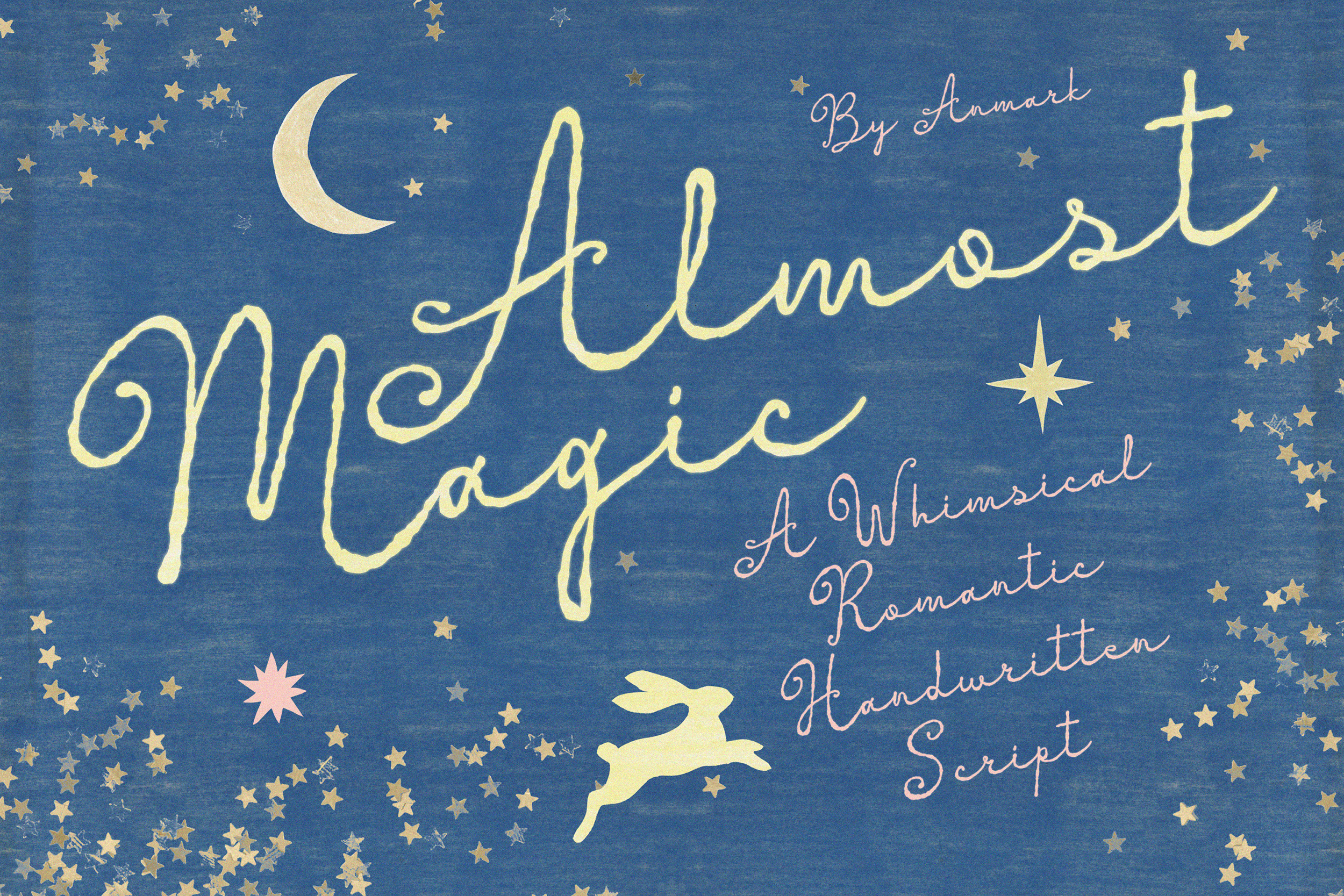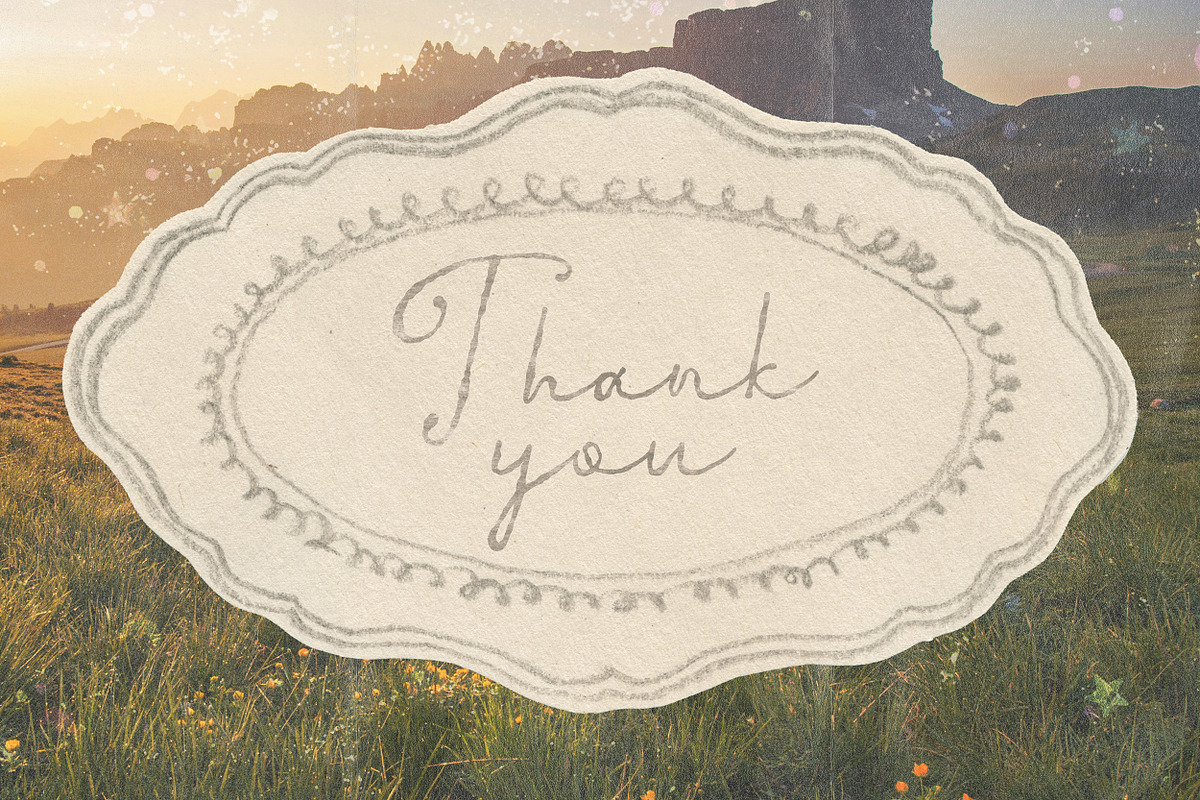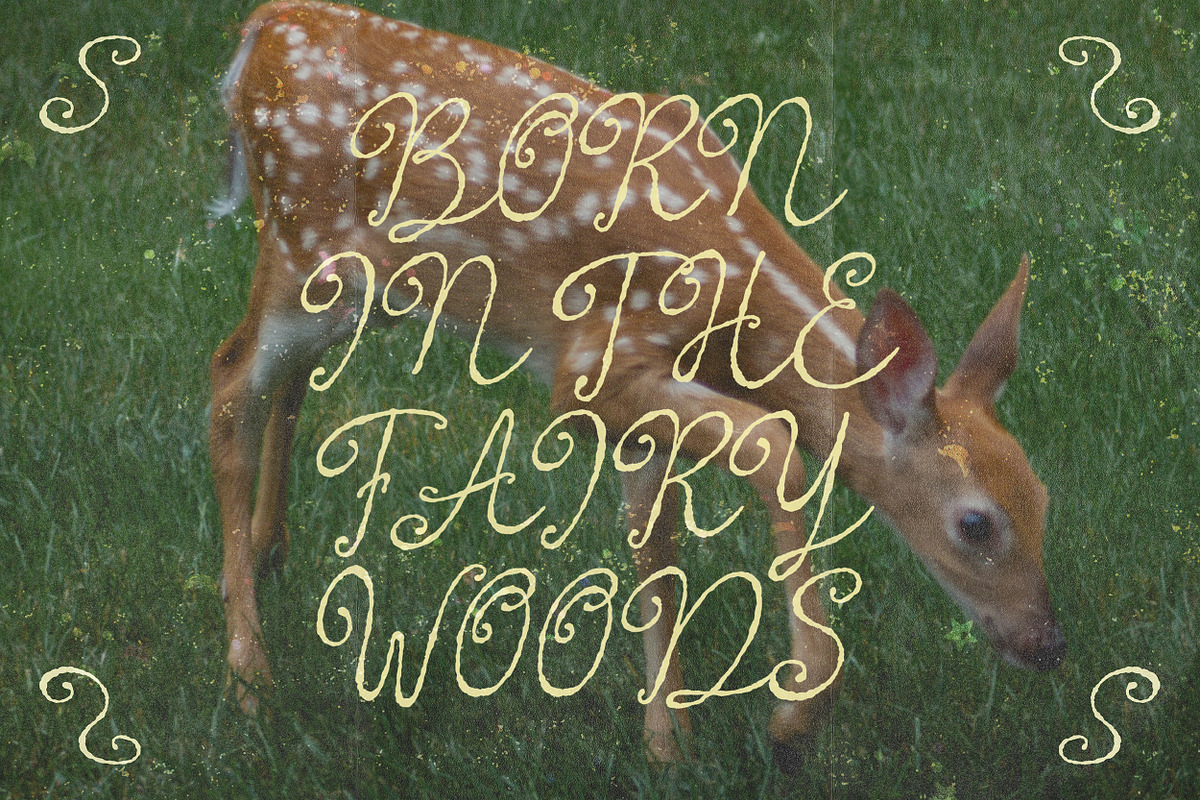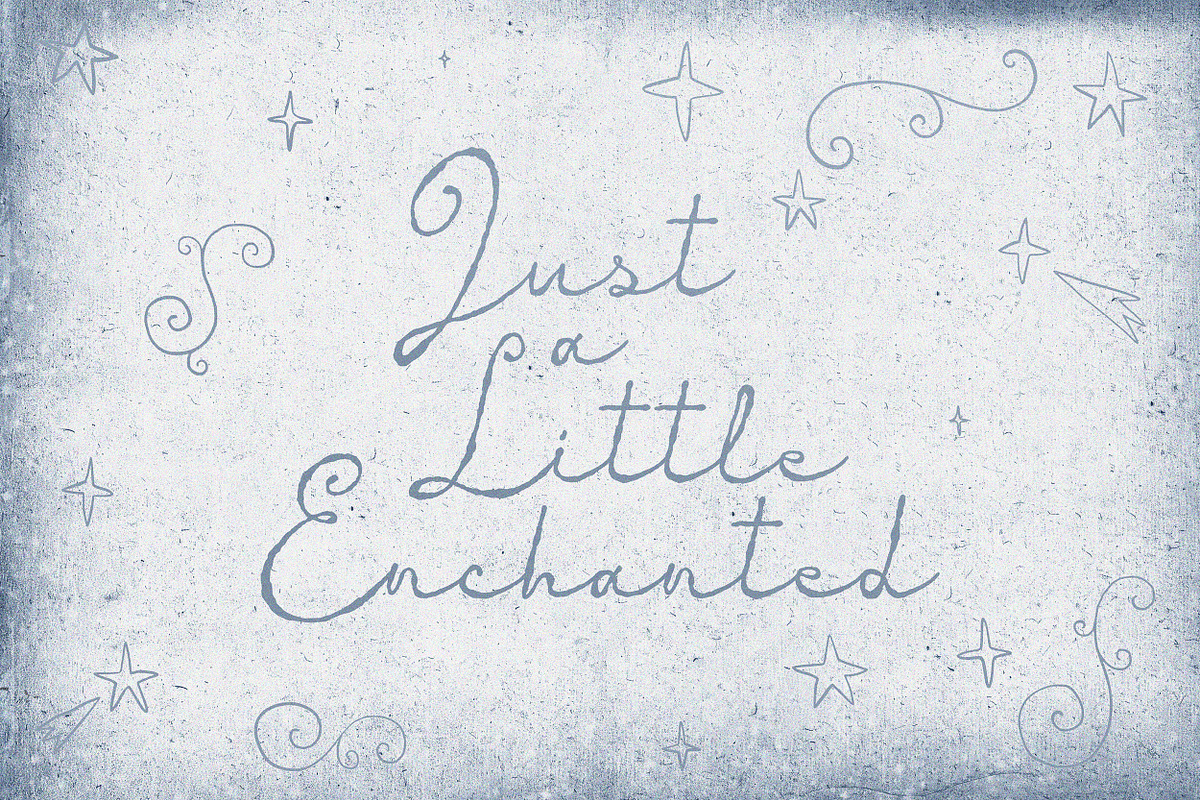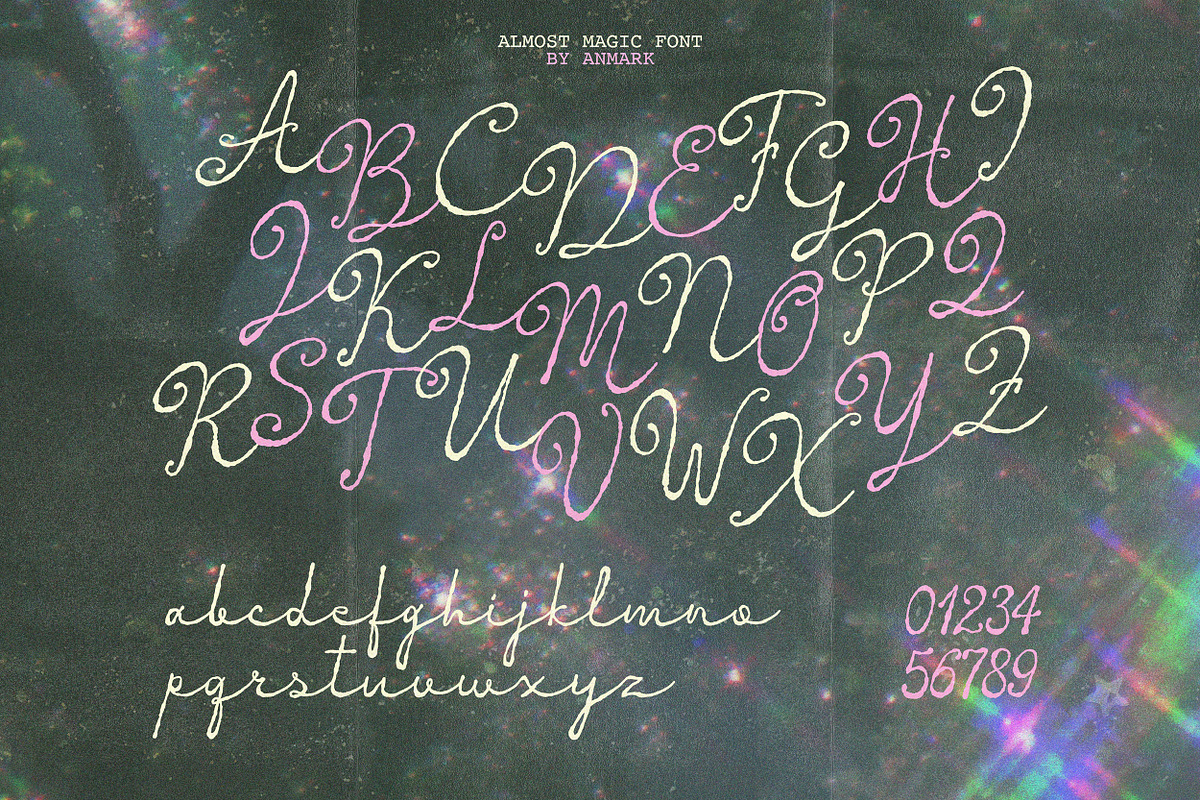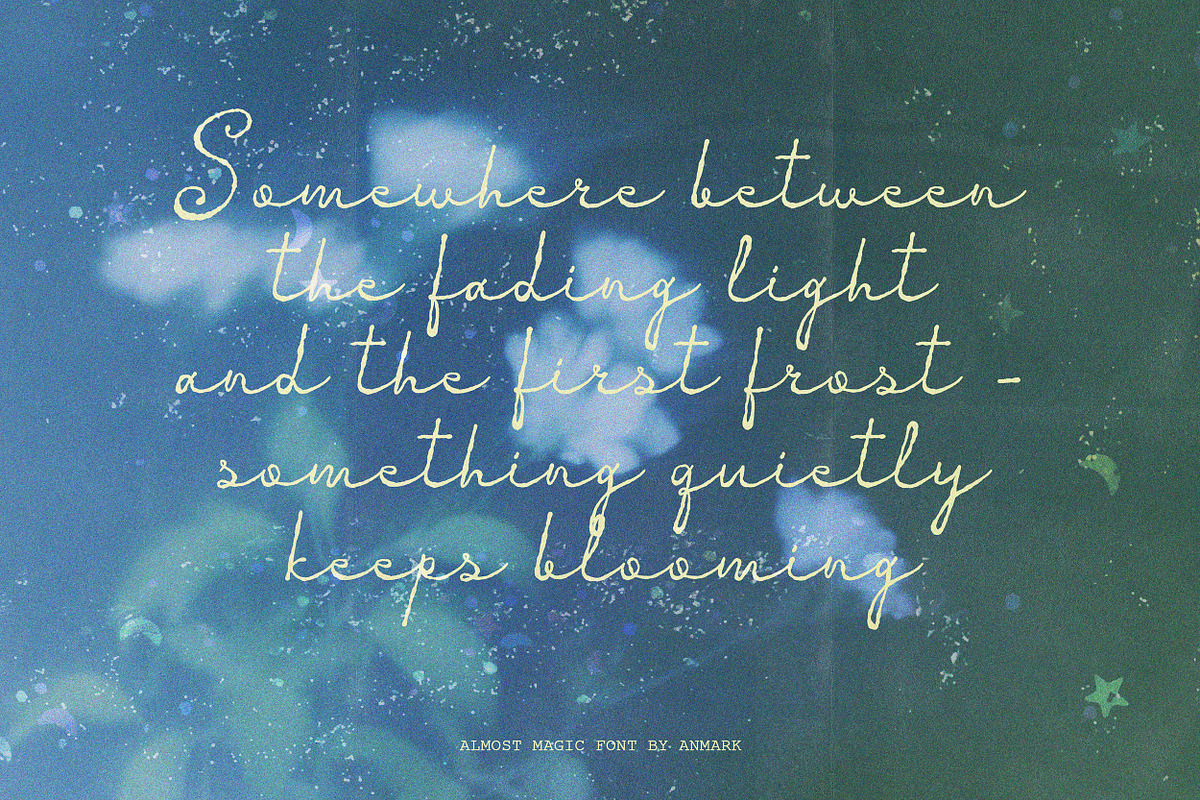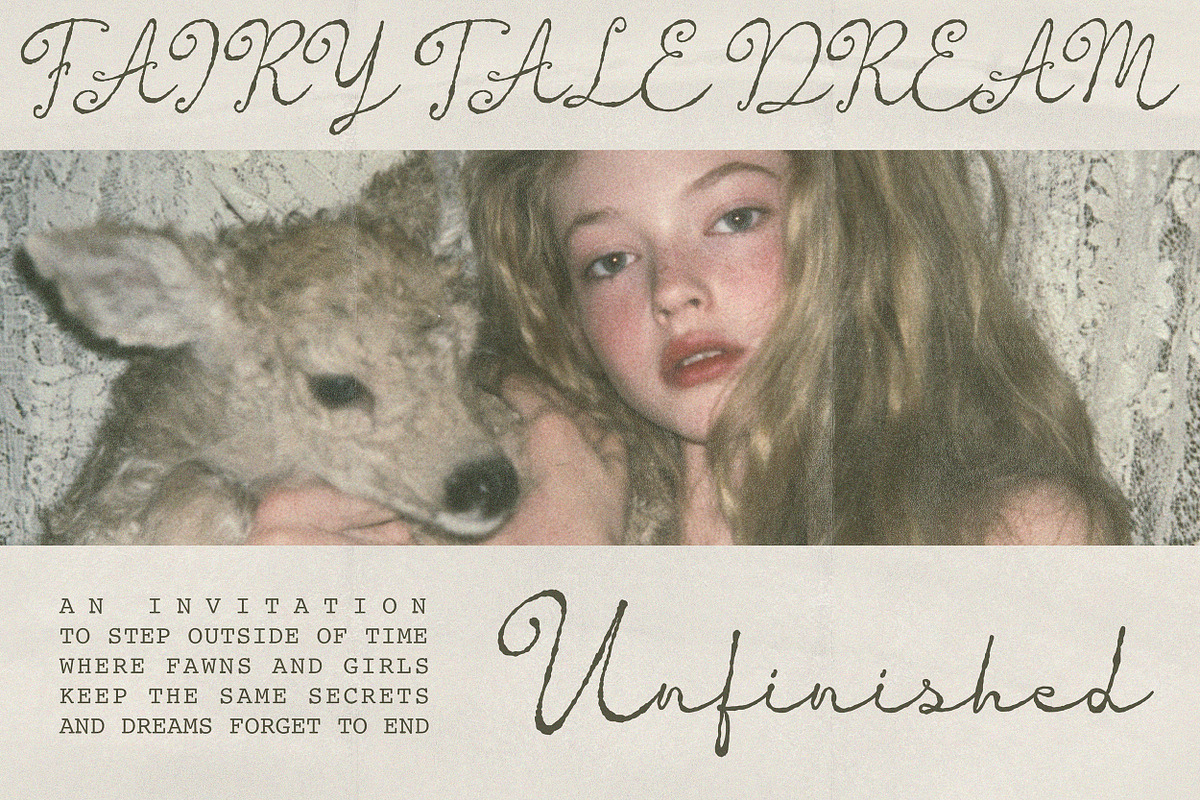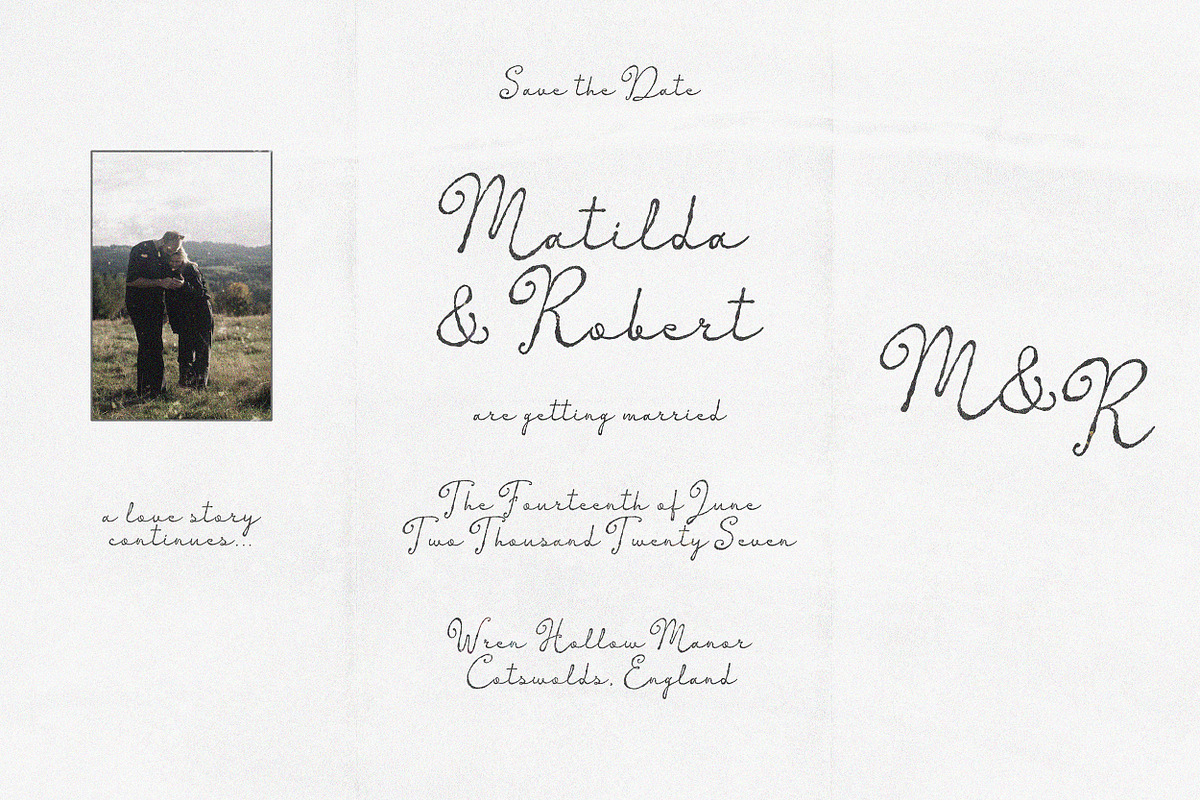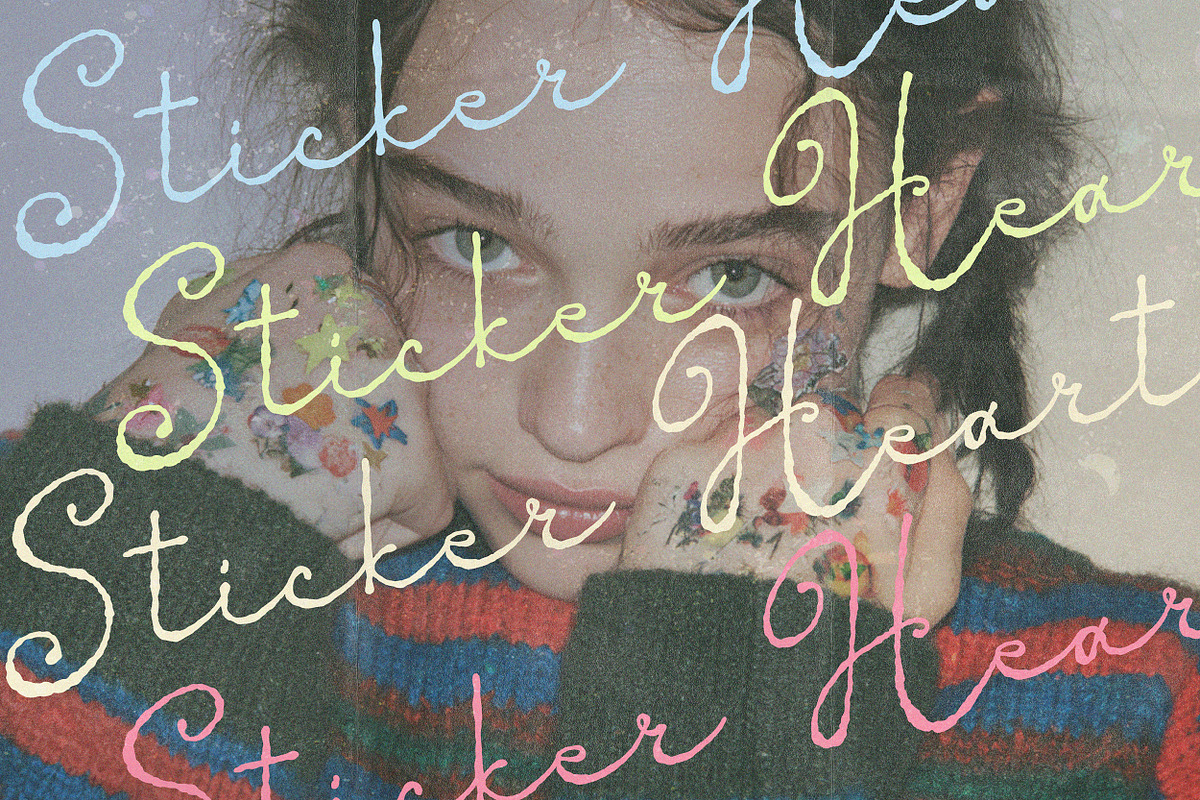
Almost Magic Whimsical Script Font
**Almost Magic **is a dreamy, whimsical script with the soft, uneven charm of a real hand at work. Tall, sweeping capitals unfurl into generous loops and swashes, while the lowercase letters keep a gentle, storybook rhythm, connected and flowing like a quiet secret shared on paper. There's a naive, fairytale quality to every curve, something between a love letter and a half remembered dream, warm rather than polished, tender rather than perfect.
This font carries full multilingual support for extended Latin languages, including French, German, Spanish, Italian, Polish, and other European diacritics, so it's ready for international projects right out of the box.
Almost Magic feels right at home on wedding invitations and stationery, save the dates, greeting cards, and thank you notes. It works just as beautifully for branding and logos, packaging and product labels, social media graphics, quote designs, and any project that calls for a soft, enchanting voice. Whether it's dressing up a bridal suite, a boutique label, or a simple handwritten note, Almost Magic brings warmth, romance, and a touch of quiet wonder to every word.